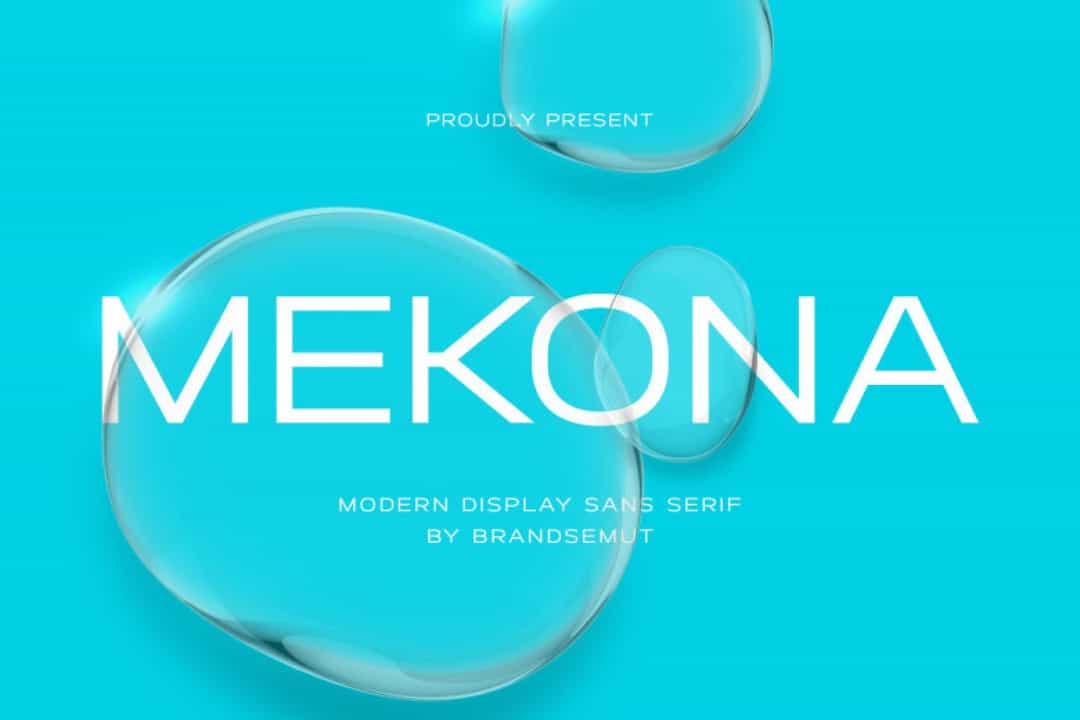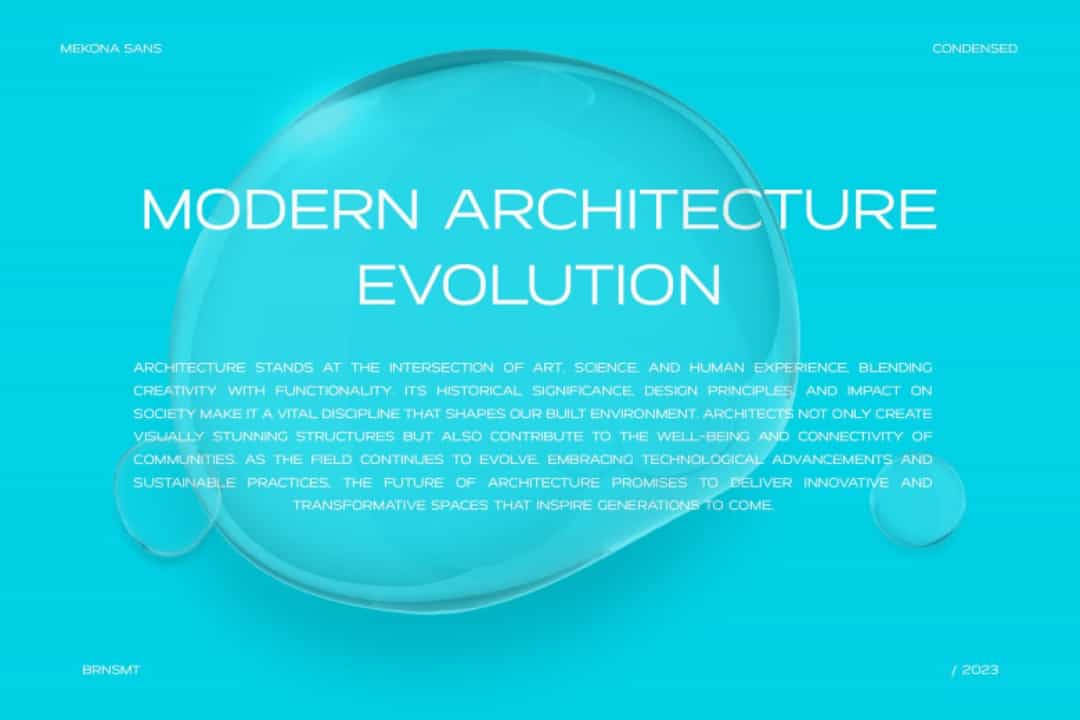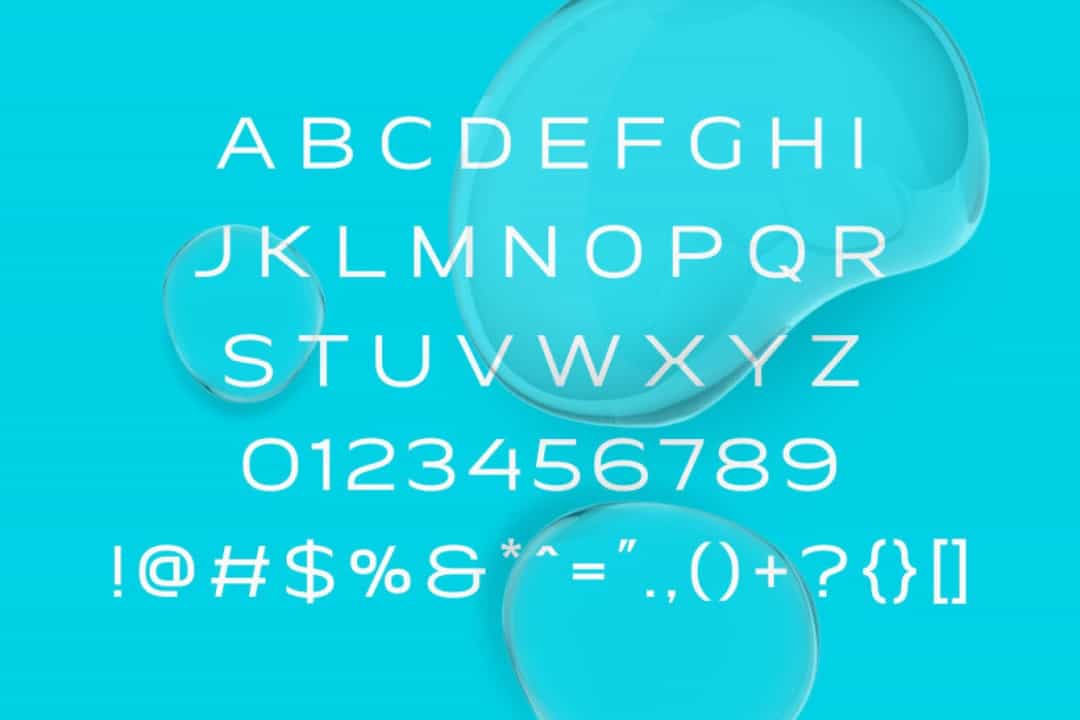
Mekona Font
Mekona is an elegant yet modern sans-serif font designed for display use in headings, logos and advertising for publications, packaging and invitations. Mekona boasts sleek edges and soft curvatures which lends any project an additional hint of sophistication.